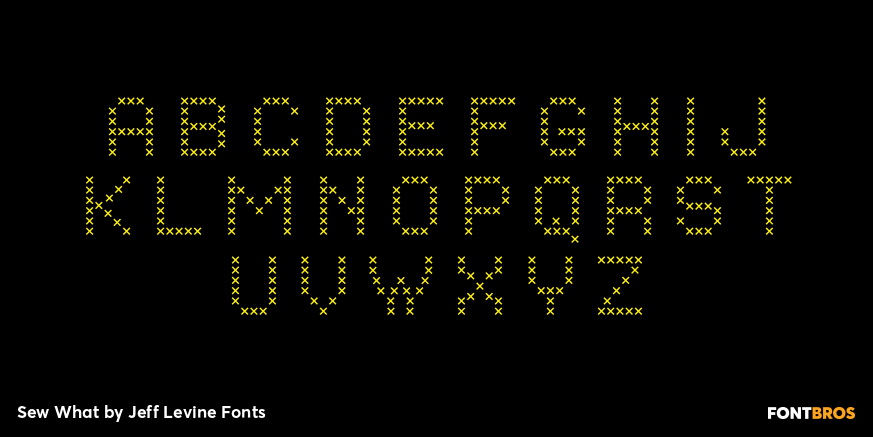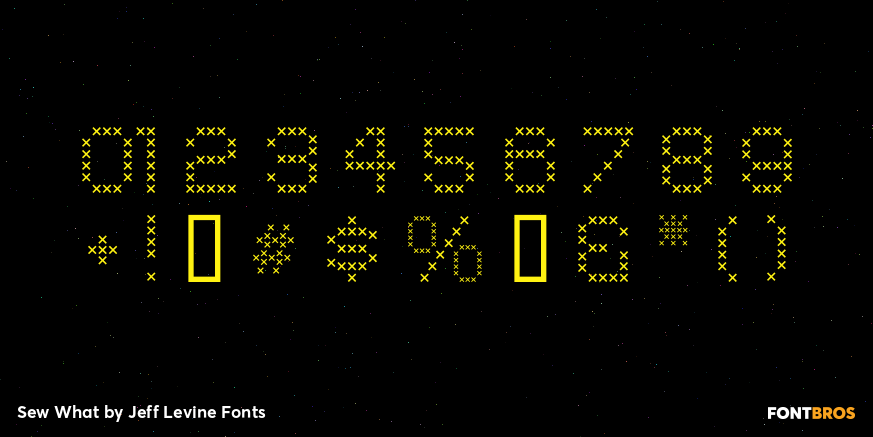
Sew What
Sew What JNL is a little novelty font that gives the appearance of letters stitched into fabric. This font contains a limited character set.
Sew What by Jeff Levine Fonts